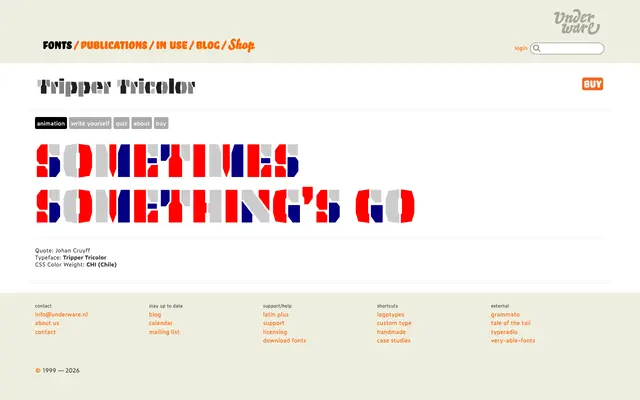
Tripper Tricolor
A chromatic colour font from Underware built on CSS Color Font technology, demonstrated with a Johan Cruyff quotation rendered in the Japan colour weight.
Tripper Tricolor is Underware's colour font release, making use of CSS Color Font technology to render type in layered, multi-colour styles. The page demonstrates a single CSS Color Weight labelled JPN (Japan), applied to a quotation attributed to Johan Cruyff. The scant page content makes it difficult to assess the full family breadth, but the chromatic approach positions it squarely as a display face for expressive, screen-oriented use.
Tripper Tricolor is a chromatic typeface using CSS Color Font technology, designed for layered multi-colour display use, placing it firmly in the display category with a chromatic/colour font subcategory.